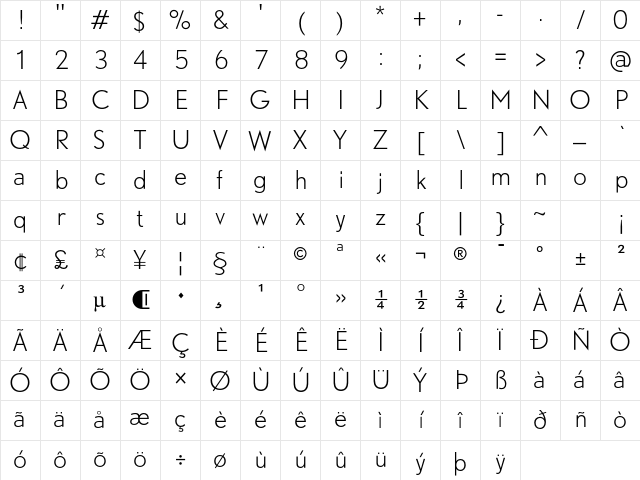
DTLNobelT Light
Design Context for DTLNobelT
DTLNobelT is a composed and adaptable typeface that performs quietly and consistently across a wide range of design contexts. Its slender proportions lend an understated elegance to any composition.